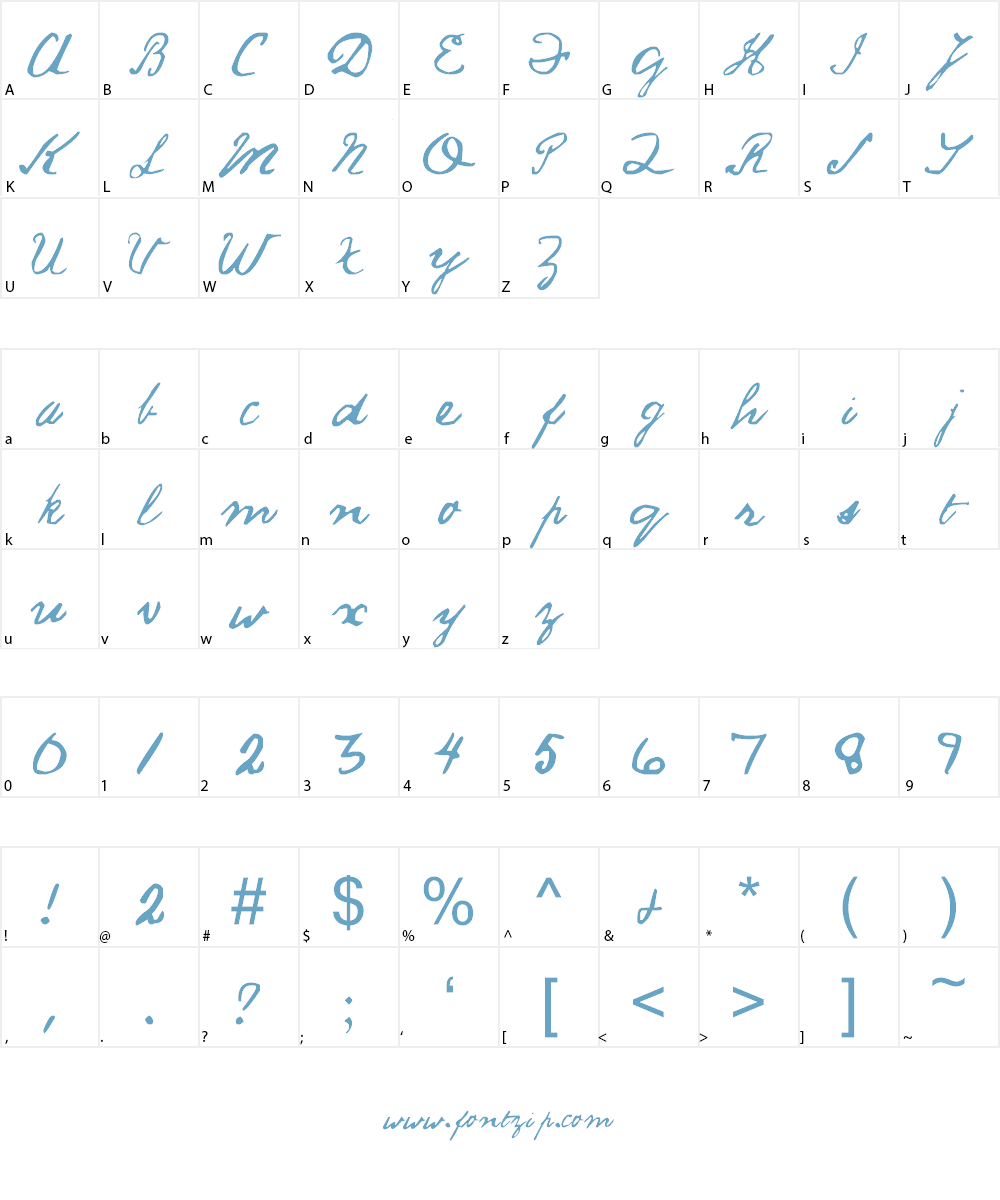
A true Victorian handwriting font. Don't use the Jane Austen font to emulate Victorian or later handwriting; by the Victorian era, the pen had been invented and people no longer used quills like Miss Austen did. This was very obviously written with an actual pen rather than with a dipper, quill or biro; it comes from a letter purportedly written by the famous Englishman, Mr John D. Rypper. It is suited to any period ranging from the invention of the pen (1830) to the popularity of the biro (1965).